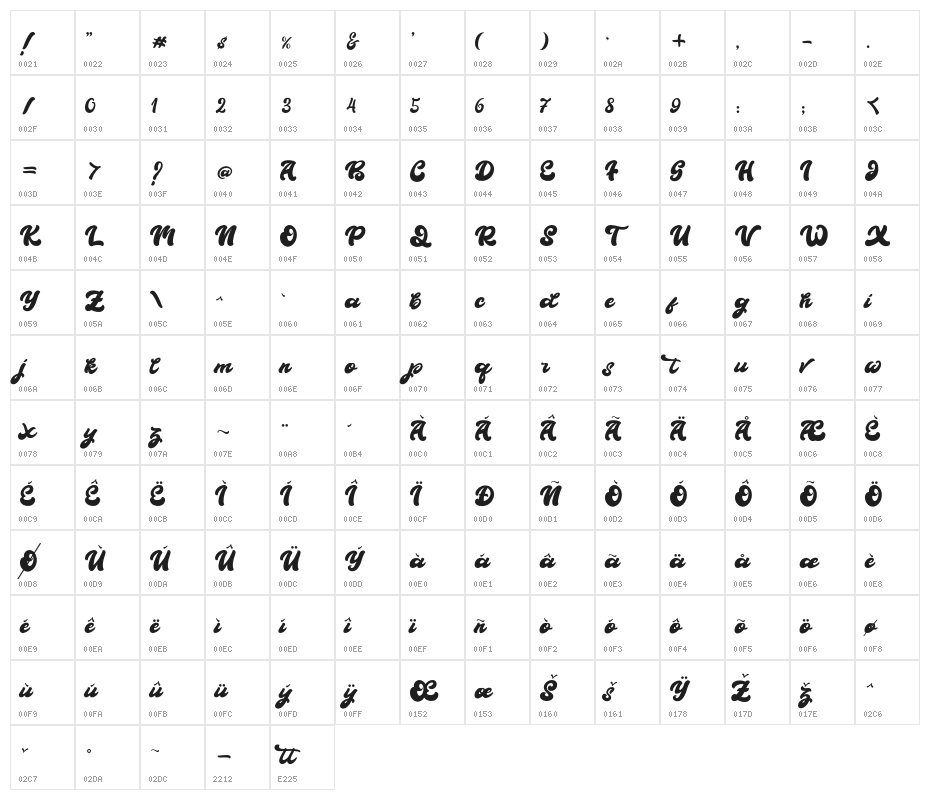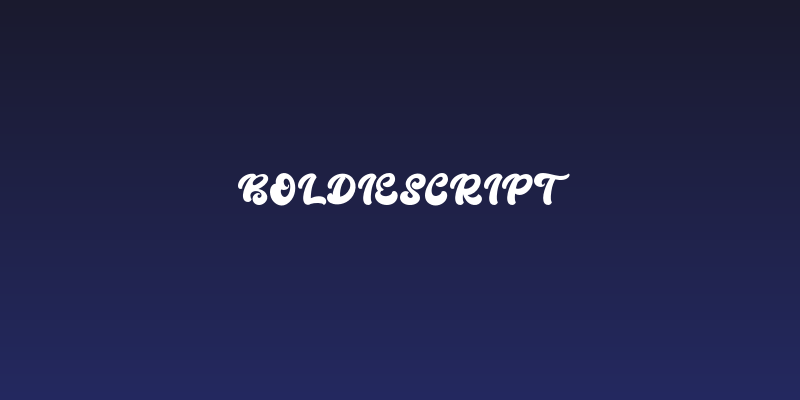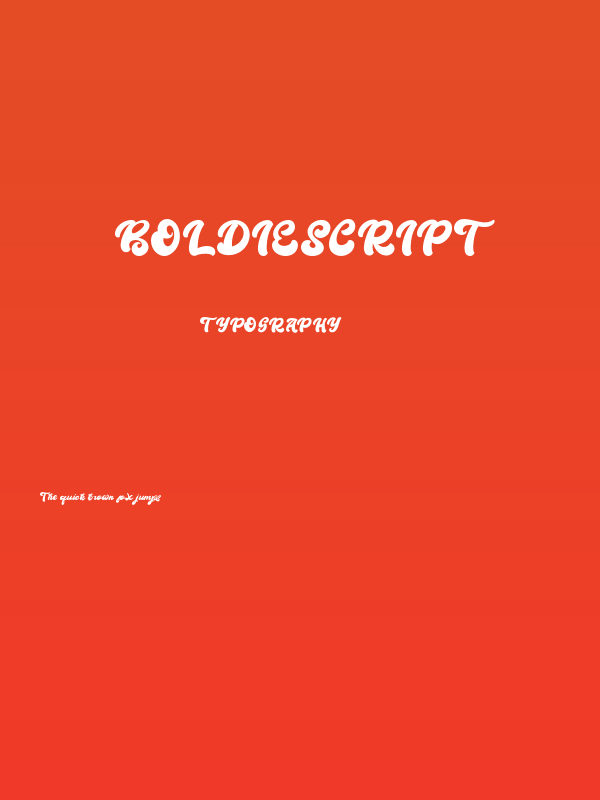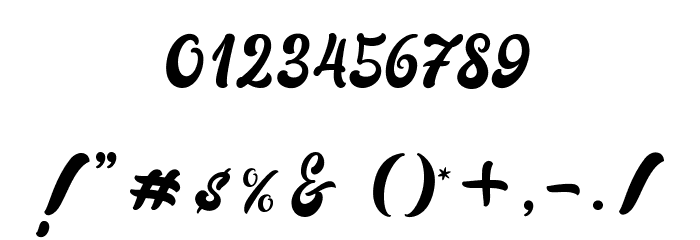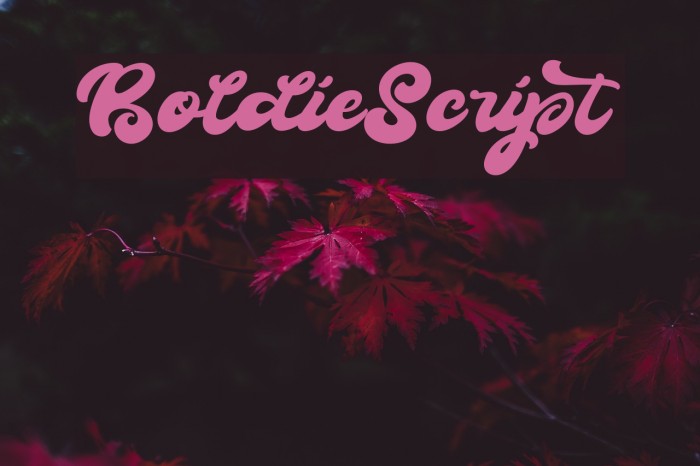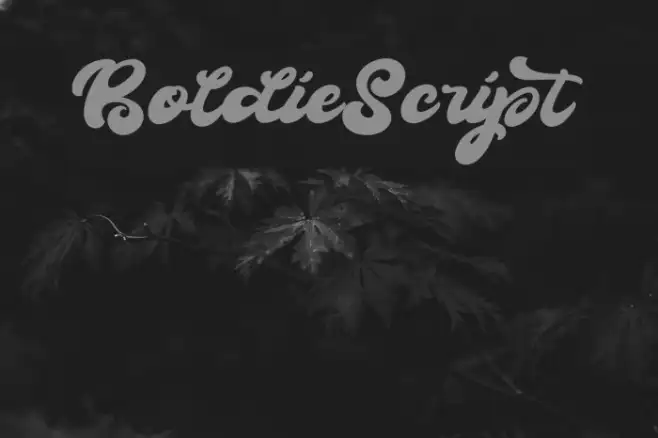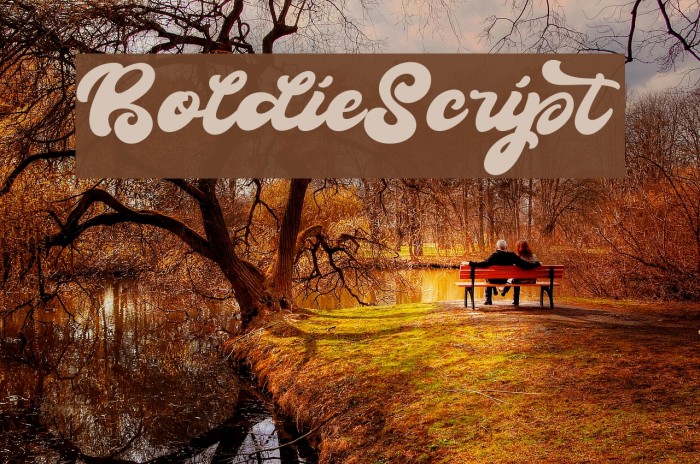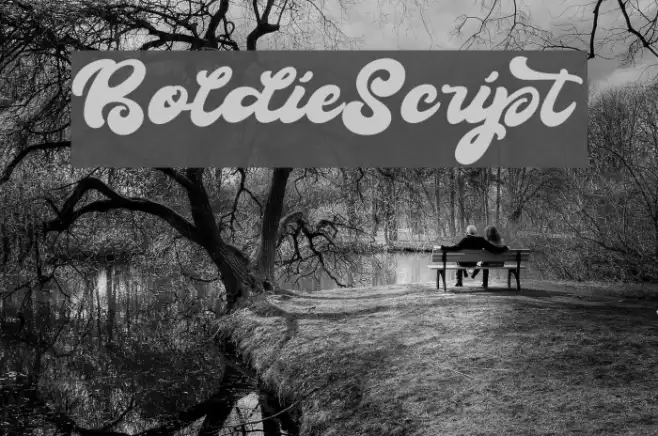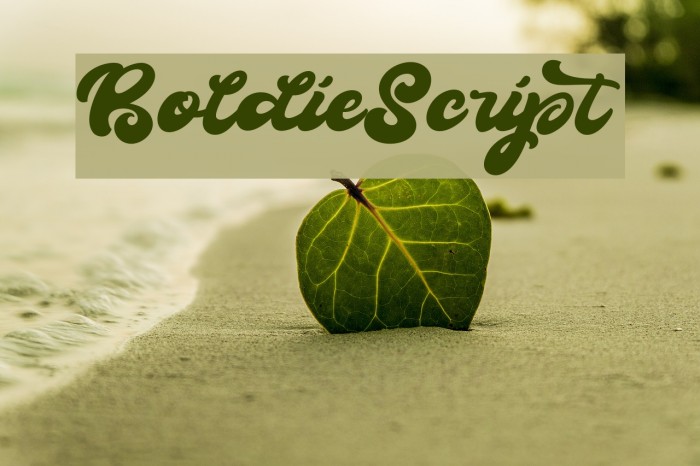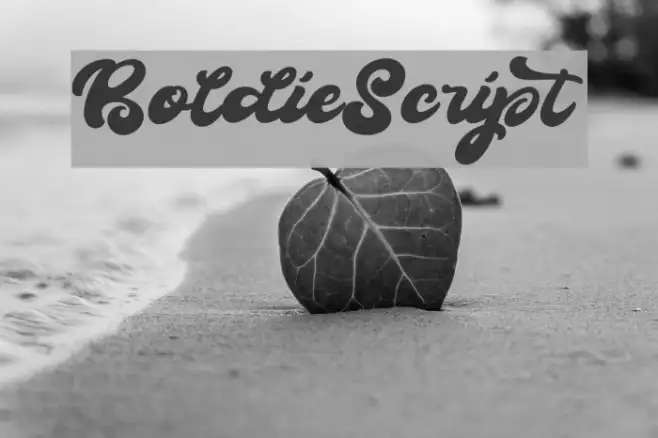
BoldieScript Font
BoldieScript Description
This font is a bold, expressive script typeface that exudes a sense of elegance and flair. The characters are interconnected with smooth, flowing strokes, creating a cohesive and dynamic appearance. The uppercase letters are particularly striking, with exaggerated curves and loops that add a touch of sophistication. The lowercase letters maintain a consistent style, complementing the uppercase with their rounded forms and fluid connections. The numerals are equally stylish, featuring the same bold and flowing characteristics. Special characters are designed with attention to detail, ensuring they blend seamlessly with the overall aesthetic. This font is perfect for projects that require a touch of elegance and personality.
| Proposed Projects | Ideal for wedding invitations, branding, logo design, and elegant packaging. |